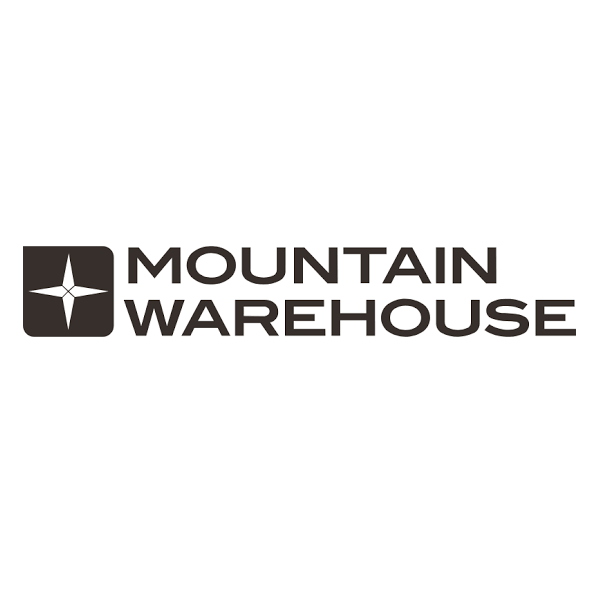
Mountain Warehouse Font
AdventureMountain Warehouse is a British outdoor retailer that specializes in clothing, equipment, and accessories for hiking, camping, and other outdoor activities.
The wordmark of Mountain Warehouse uses ITC Blair Bold, a font designed by Jim Spiece based on an early 20th-century handset metal typeface called Blair. You can view and learn more about the font here.